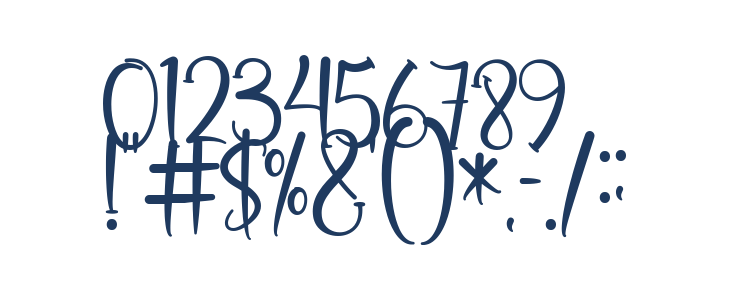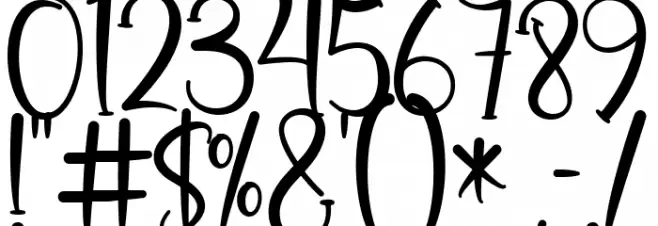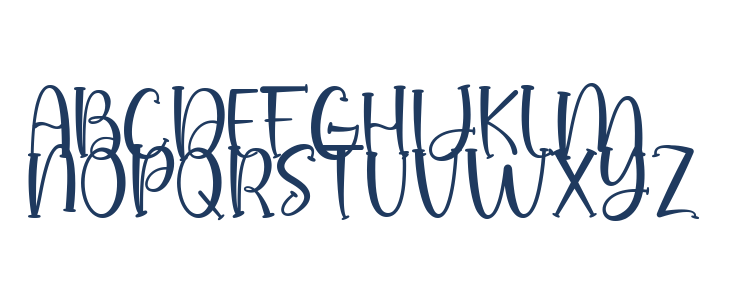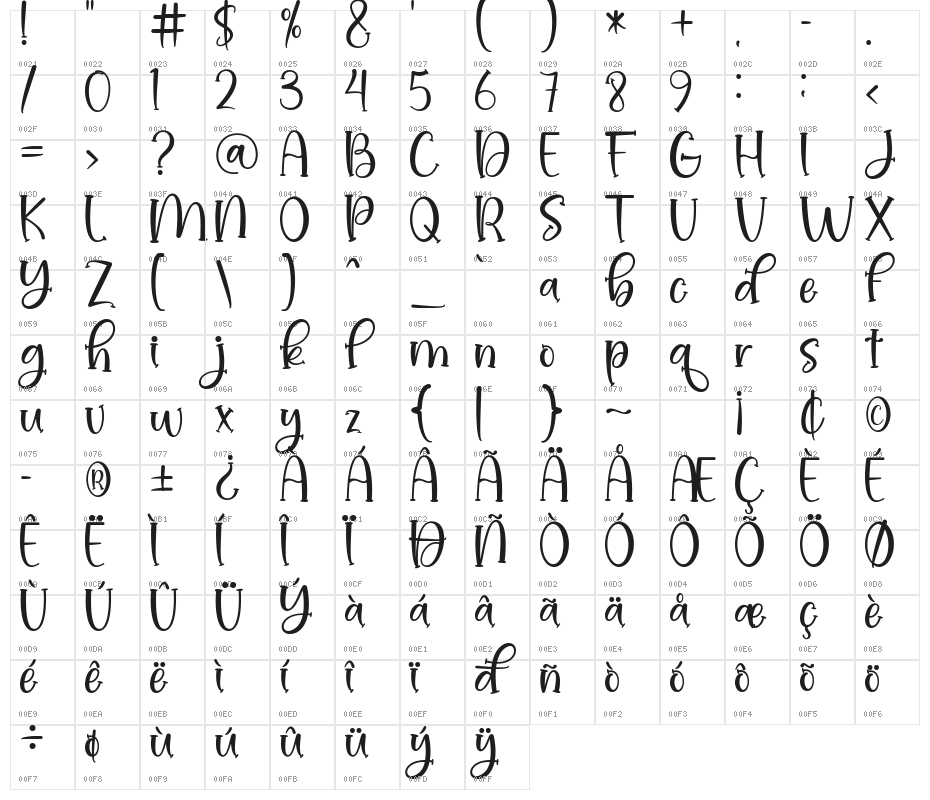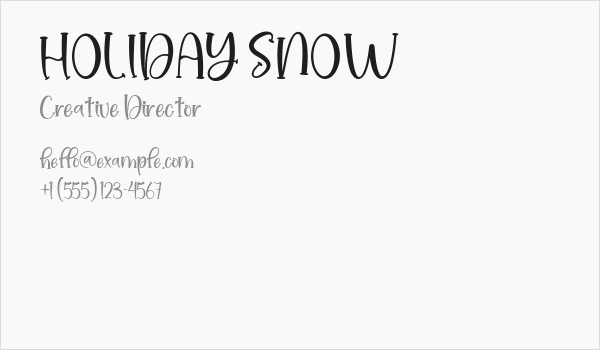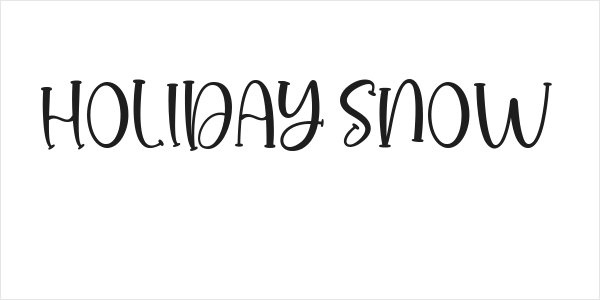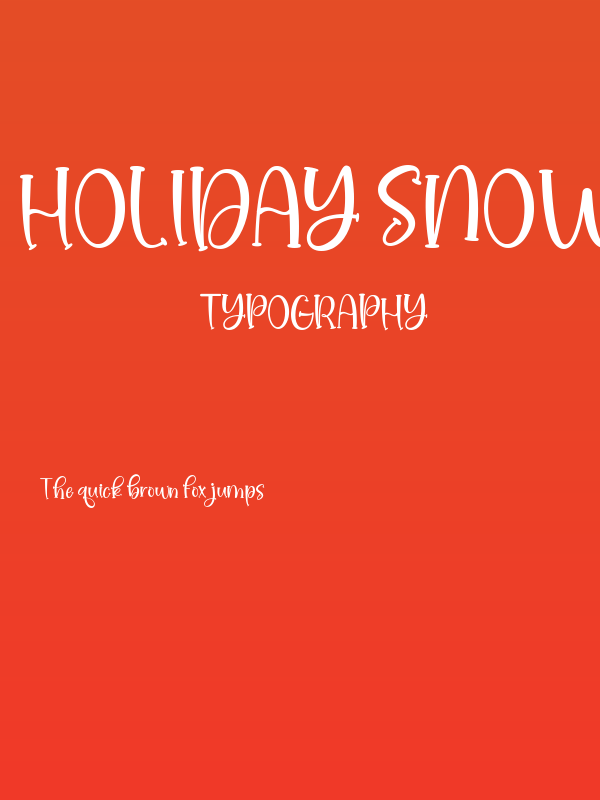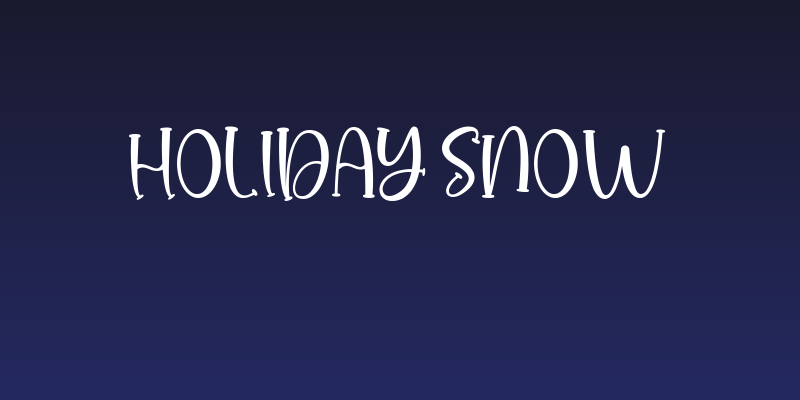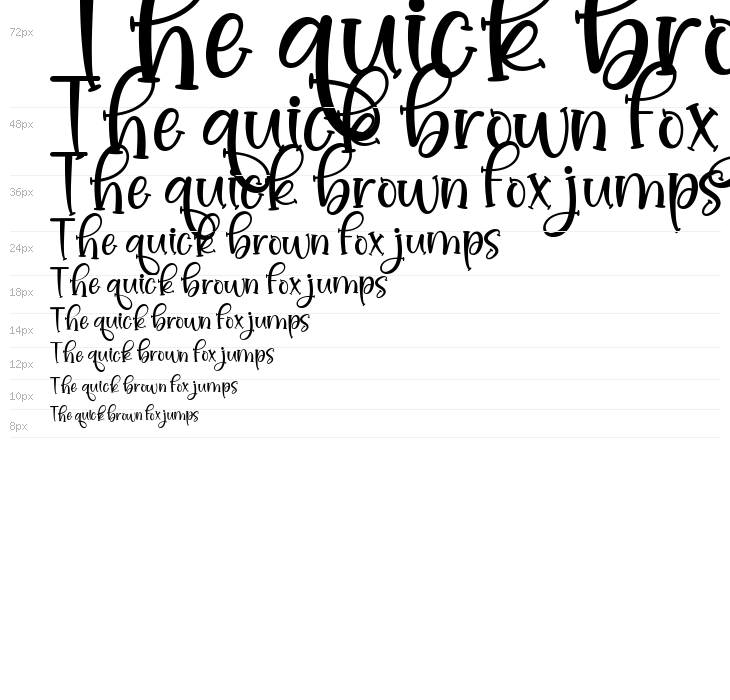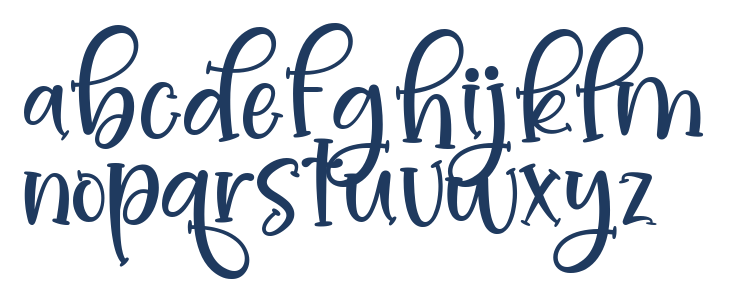
HOLIDAY SNOW Font
HOLIDAY SNOW Description
A playful, handwritten script with tall, narrow letterforms, whimsical curves, and varying stroke thickness, giving it a casual and festive appearance. The characters have a loose, informal structure with high ascenders and descenders, and the numerals and symbols are similarly expressive.
| Overall Style | Decorative, Playful, Festive |
| Use Case | Headlines, Logos, Invitations, Posters |
| Proposed Projects | Greeting cards, holiday invitations, posters, children's books, festive branding. |